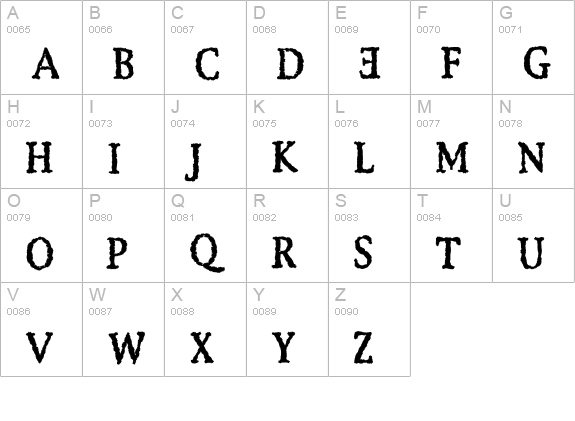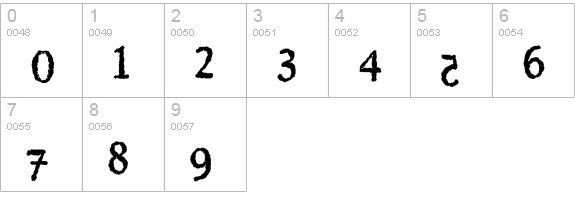
Ebola Kikwit Font Details
Introducing the magnificent Ebola Kikwit font, a stunning typeface that will captivate and inspire with its unique design. This font is not only visually appealing but also carries a powerful message of strength and resilience. With its bold and striking letterforms, Ebola Kikwit is perfect for adding a touch of sophistication to any project, whether it be a logo, branding, or advertising campaign. Its intricate details and elegant curves make this font stand out from the crowd, ensuring that your message will be conveyed with style and impact. But what makes Ebola Kikwit even more special is that it is available for free. Yes, you heard it right! This exceptional font can be freely downloaded from FontsMarket.com, allowing you to enjoy its beauty without any cost. We believe that creativity should be accessible to all, and by offering Ebola Kikwit as a free download, we hope to empower designers, artists, and enthusiasts to unleash their imagination and create extraordinary works of art. So don't miss out on the opportunity to enhance your designs with Ebola Kikwit font. Download it for free at FontsMarket.com and let your creativity soar to new heights.